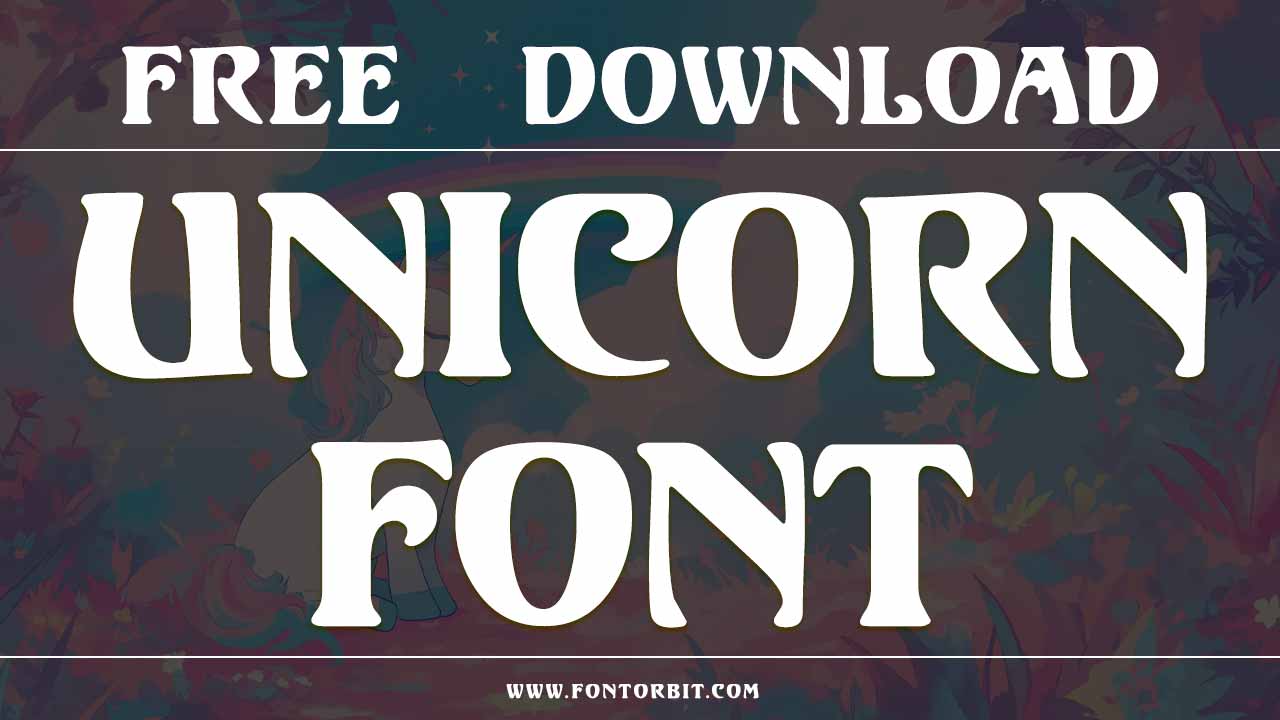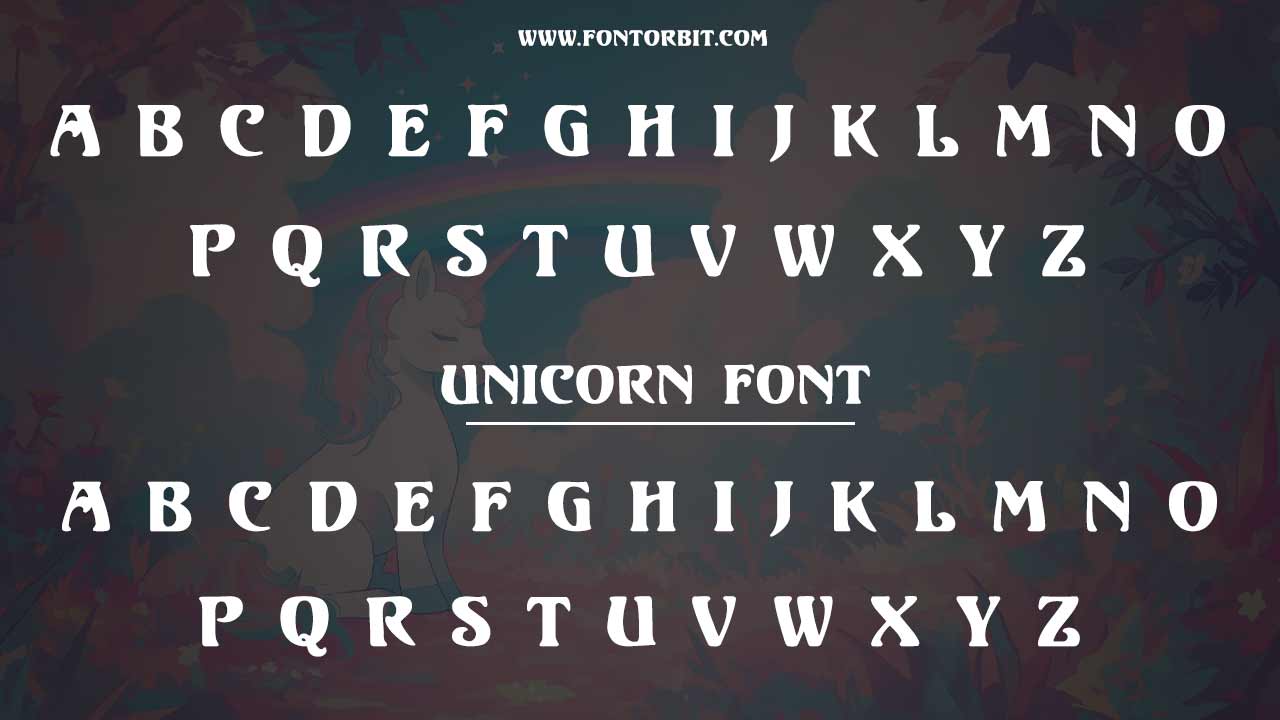
Unicorn fonts infuse any design project with a touch of whimsy, magic, and pure fun. Whether you’re crafting a birthday invite, creating a playful logo, or jazzing up some product packaging, these fonts will effortlessly add a unique and colorful charm. They add that unexpected sparkle to your project, making it feel finished all at once.
So, what exactly is a unicorn font? Well, these fonts are display typefaces that stand out for their decorative, curvy designs. They often play with bold strokes, funky swashes, and sometimes even rainbow-like elements, which can turn any ordinary project into something special. Imagine them as the font equivalent of a captivating fairy tale, brimming with vibrancy and personality. They blend modern calligraphy with hand-drawn, artistic flourishes, making them a perfect choice when you’re aiming for something creative and eye-catching.
What Makes Unicorn Fonts Special?
Unicorn fonts offer a wealth of style and versatility. Here’s why they’re so magical:
- Whimsical Designs: The very essence of unicorn fonts is their fun, quirky nature. They’re the perfect choice when you want your design to stand out and grab attention.
- Decorative Swashes & Bold Strokes: These fonts love to make a statement. The sweeping curves and artistic embellishments make any project feel special and personalized.
- Hand-Drawn & Modern Calligraphy Styles: If you’ve ever dreamed of a handwritten look with a modern twist, unicorn fonts deliver it effortlessly.
- Unicode Text Support: Some unicorn fonts support multiple languages, including Hindi, Tamil, and others. This makes them not only beautiful but also functional for a wider range of designs.
- Crafting Compatibility: For those who love to craft, many unicorn fonts are compatible with design software like Cricut Design Space, making them a great choice for all your DIY projects.
Top Unicorn Font Families You’ll Love
Here Are A Few Popular Unicorn Font Families You’ll Definitely Want To Explore:
- Good Unicorn Regular: A charming typeface that combines style and a dash of humor. It is shameful but full of personality, like the unicorn of fonts.
- Funky Unicorn: For those who want a little more edge, Funky Unicorn is bold, fun, and downright funky. It’s perfect for designs that demand attention.
- Bad Unicorn Demo: A font that doesn’t play by the rules. It is characterized by its quirky and slightly rebellious nature, ensuring it stands out from the crowd.
- Magnetta Laurelly: This one offers a bit more sophistication while still maintaining that whimsical flair. It’s perfect for branding or more artistic designs.
- Square Curves: If you’re looking for something geometric yet playful, Square Curves brings a unique balance of both.
- Mellifluous: This font has a smooth, flowing feel to it, almost like music to your eyes. It’s great for anything from logos to elegant invitations.
Where To Use Unicorn Fonts
Unicorn fonts aren’t just for fun. They’re incredibly versatile. Here’s where you can use them:
1. Invitations
There’s something about unicorn fonts that makes them perfect for invitations. Whether for a birthday party, a wedding, or even a themed event, these fonts immediately create an inviting, magical atmosphere. The bold swashes and playful curves set the tone, making your guests feel like they’re entering a fantasy world.
2. Logos & Branding
Looking to make your brand stand out? Unicorn fonts are perfect for creative businesses that want to exude fun and approachability. Think of companies in beauty, kids’ toys, or even artisanal crafts—they can all benefit from the whimsical touch of unicorn-inspired typefaces. Whether it’s for a logo or branding materials, these fonts inject personality into everything you do.
3. Product Packaging
Want your product packaging to pop? Unicorn fonts are a great way to give your packaging an instant visual boost. They’re especially great for beauty products, toys, or anything that needs to feel playful and exciting. Imagine a box of handmade soaps or a collection of custom candles, wrapped in unicorn-style lettering—it’s the kind of font that makes customers smile before they even open it.
4. Cricut & Silhouette Designs
Crafting enthusiasts, this one’s for you! Unicorn fonts work seamlessly with Cricut Design Space and other cutting software, making them an excellent choice for creating everything from personalized T-shirts to custom greeting cards. The best part? You can customize these fonts for any project, adding your own creative spin as you go.
5. Social Media & Websites
In today’s digital age, good typography is more important than ever. Unicorn fonts can enhance the impact of your content, whether you’re designing social media posts or web graphics. Unicorn fonts are bright, bold, and stand out in a crowded feed, making them perfect for capturing attention quickly.
7.What’s The Best Unicorn Font For Branding? For playful, stylish branding, Funky Unicorn and Good Unicorn Regular are great options. They bring fun without sacrificing style.